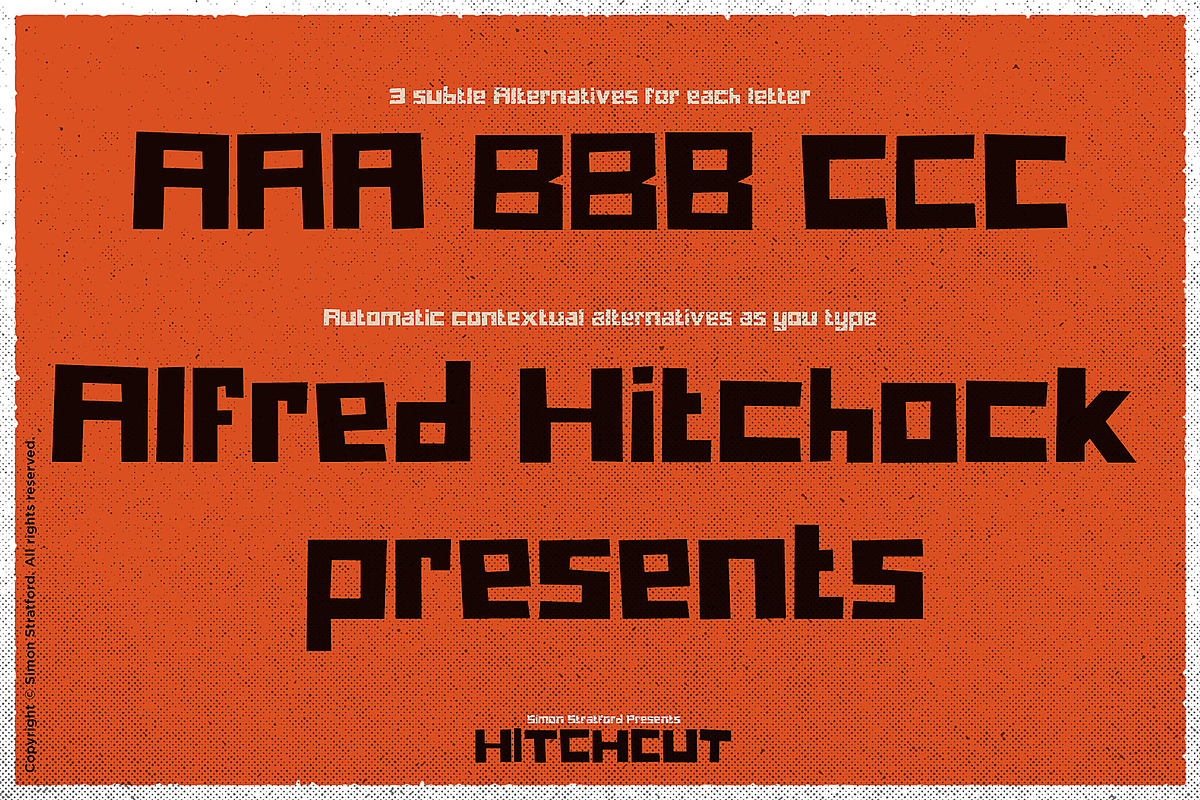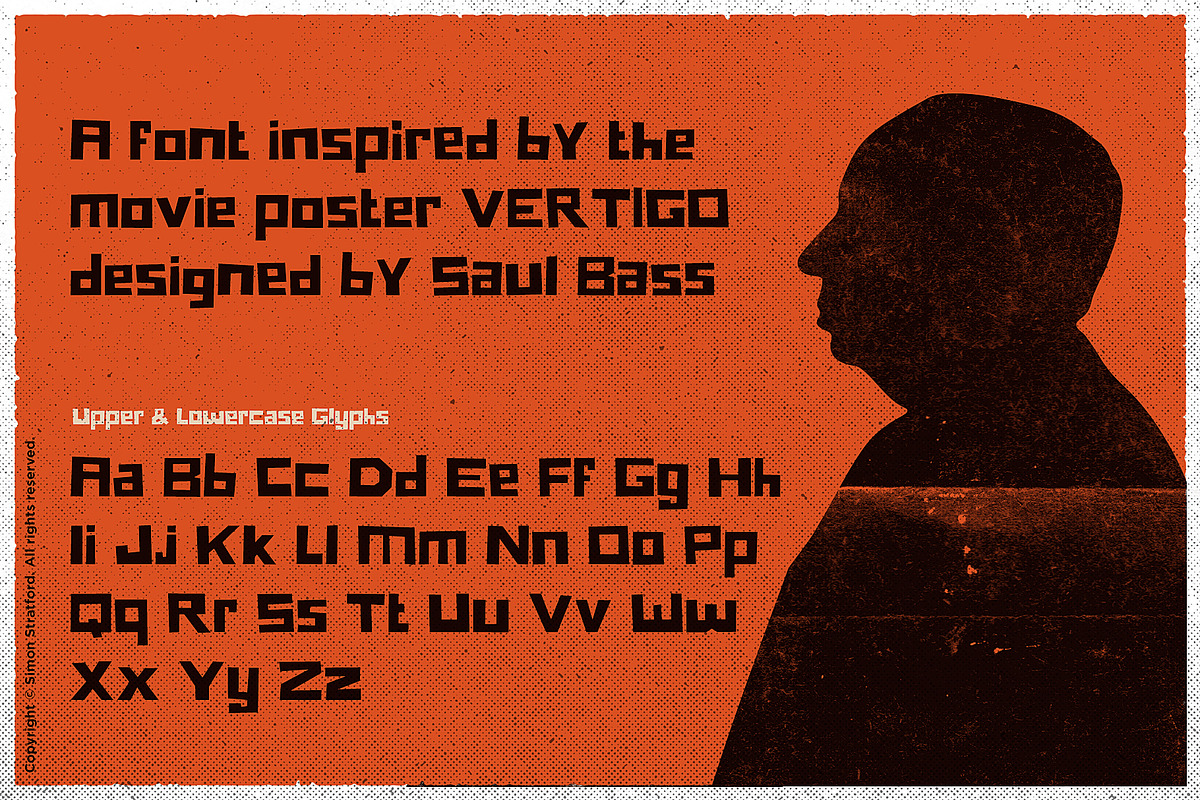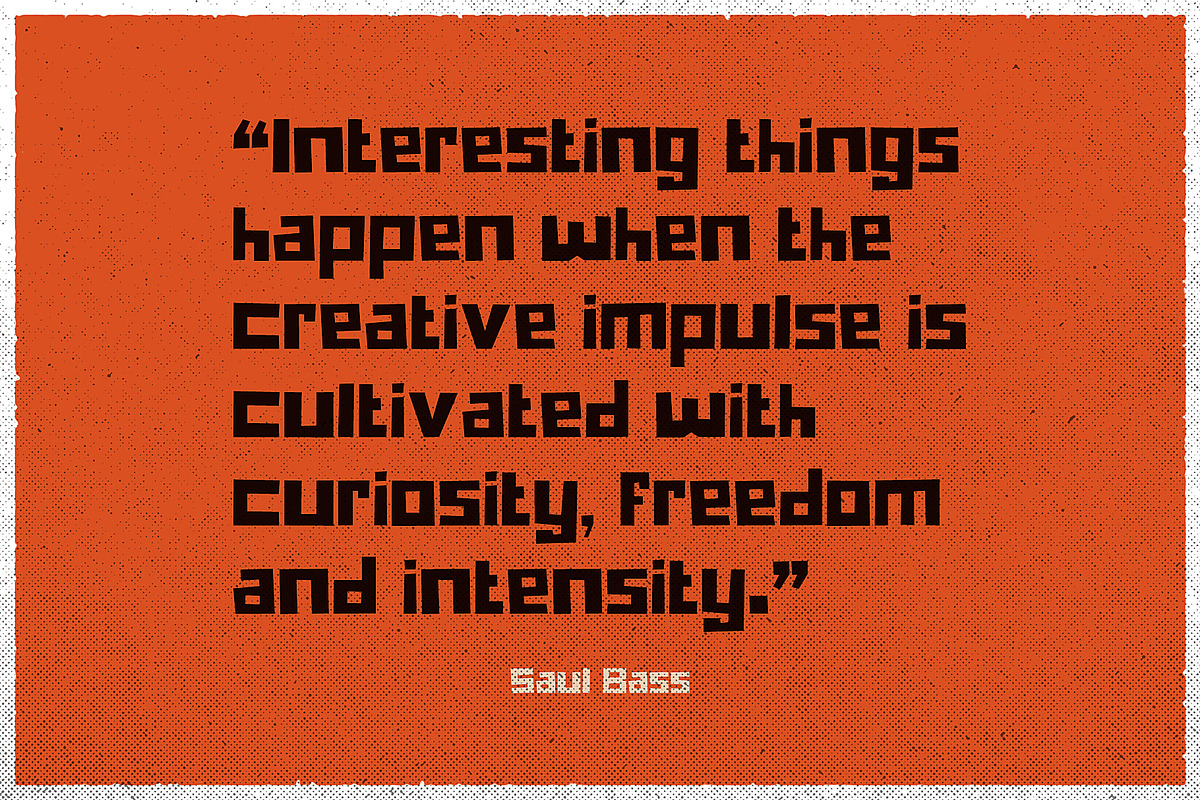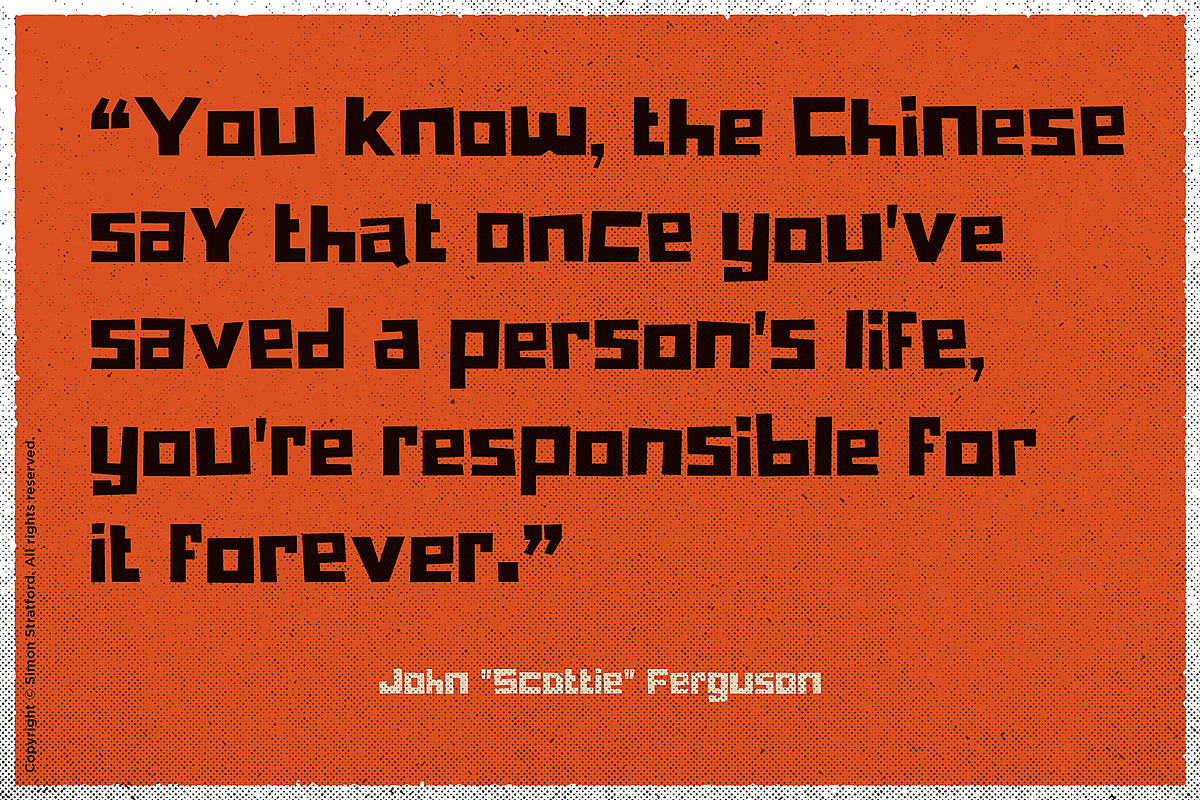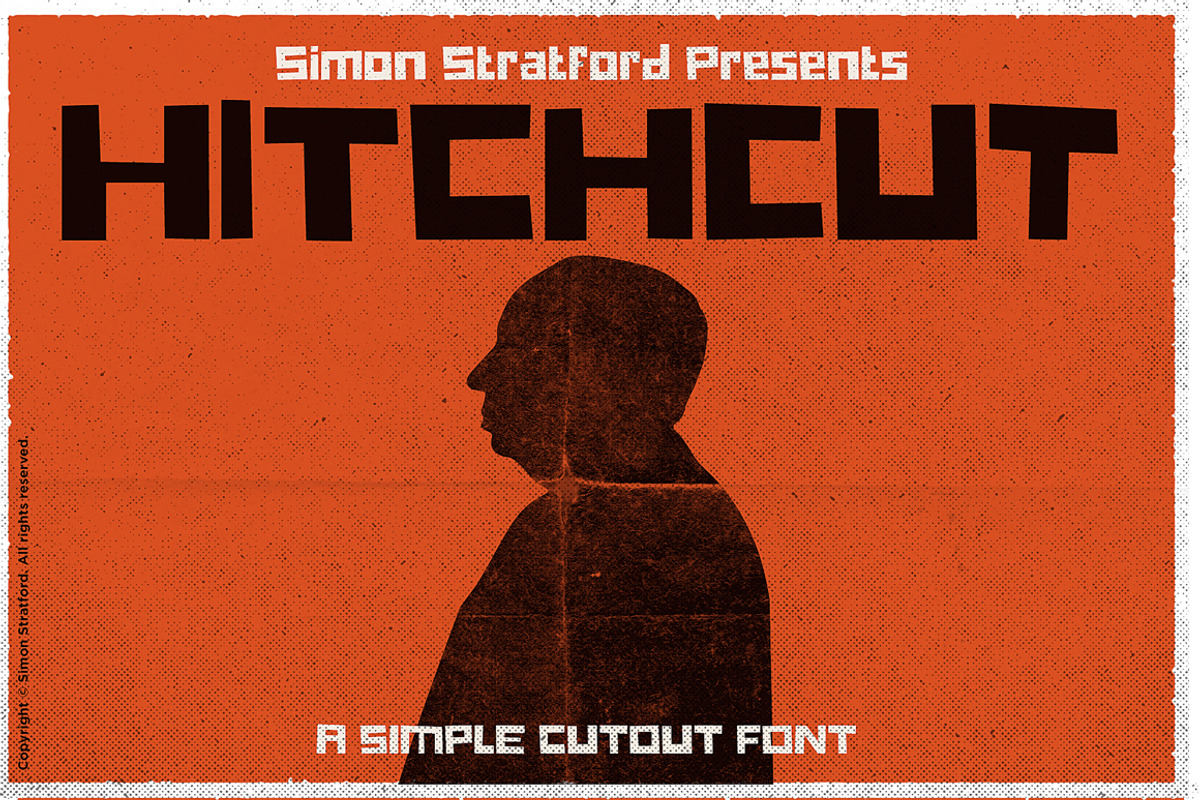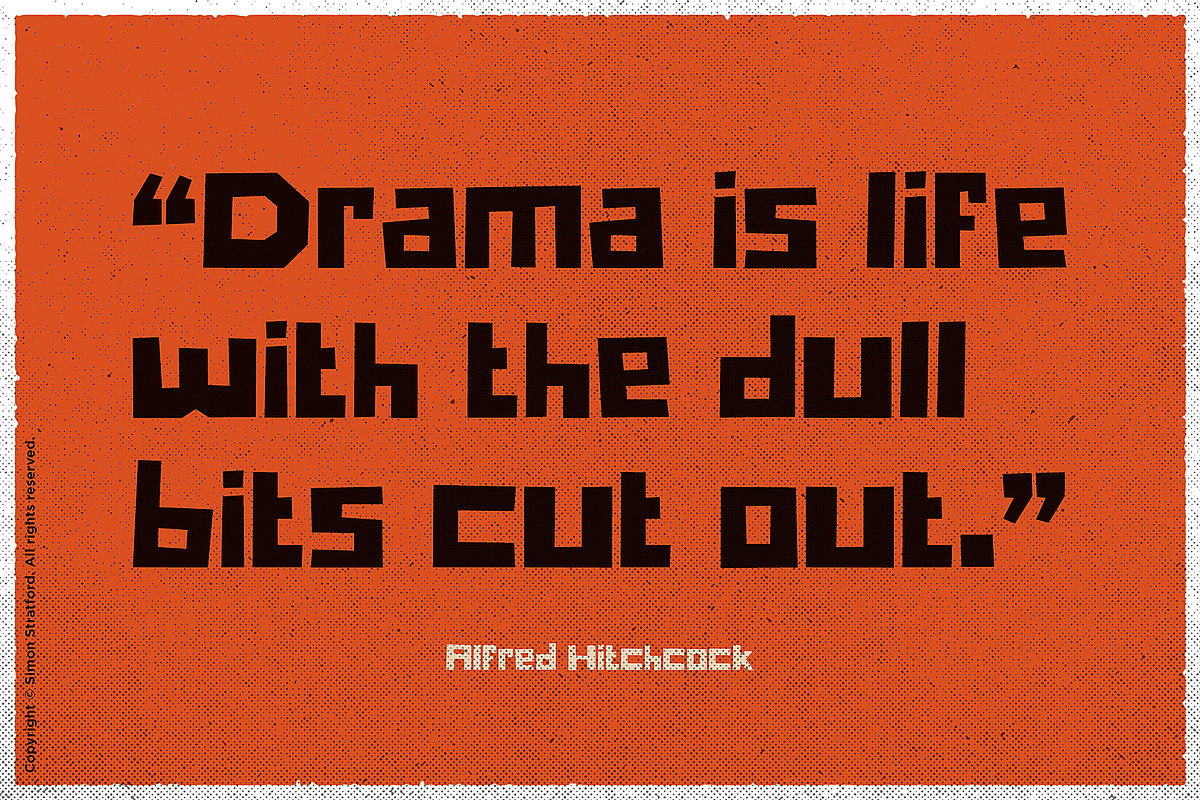
Hitchcut Display font
This is Hichcut—a big, bold display font, it’s a play on Hitchcock and cut out (pretty obvious huh!).
It’s wholly inspired by the movie poster vertigo, Saul Bass, and Alfred Hitchcock - it’s a homage more than a slavish copy.
It's retro but modern at the same time.
Childlike but not childish
For Hitchcut, I wanted to have that childlike, playful look and feel. It’s letter shapes are simple and even border on crude.
Straight lines for everything, like it’s been cut out with scissors. This makes it very legible at any size, but it looks better at large point sizes.
Hitchcut is a bold display type, so you can use it for headlines, cards, invites, logotypes, magazines and, of course, movie posters. It's ultra bold style should lend itself to any kind of messaging, use it in all caps or in sentence case.
Included Characters
Font includes:
Letters
Symbols
Support for Western, Central and South Eastern European glyphs.
Contextual alternatives
It also features contextual alternatives for each of the 26 letters of the alphabet, it total it has 3 versions of each. You just need to turn them on and type, the letters will alternate between the 3 choices automatically.